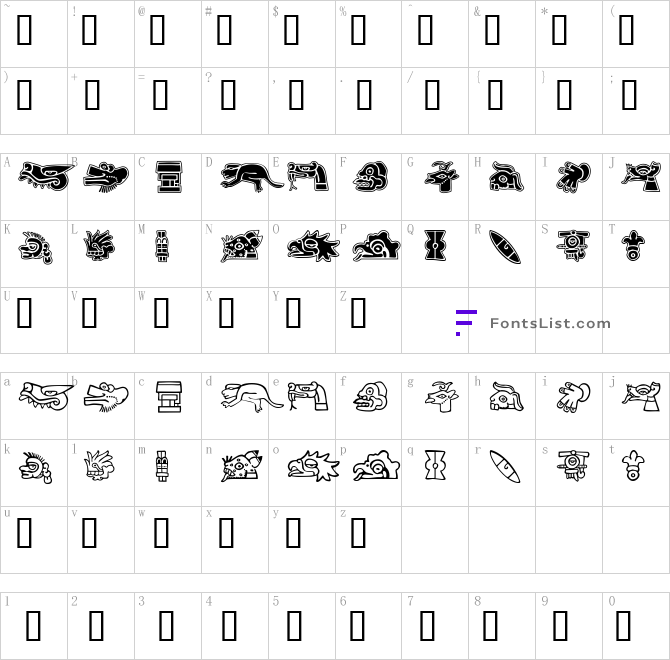
- Font Name:AztecDaySigns
AztecDaySigns.ttf is a very beautiful artistic font, AztecDaySigns.ttf is widely used in the design and printing of various books and pictures,AztecDaySigns.ttf has a strong visual impact,AztecDaySigns.ttf is a commonly used font in newspapers, magazines and books, and is used in posters, e-commerce Poster design, store design, logo design, font design and other fields.AztecDaySigns.